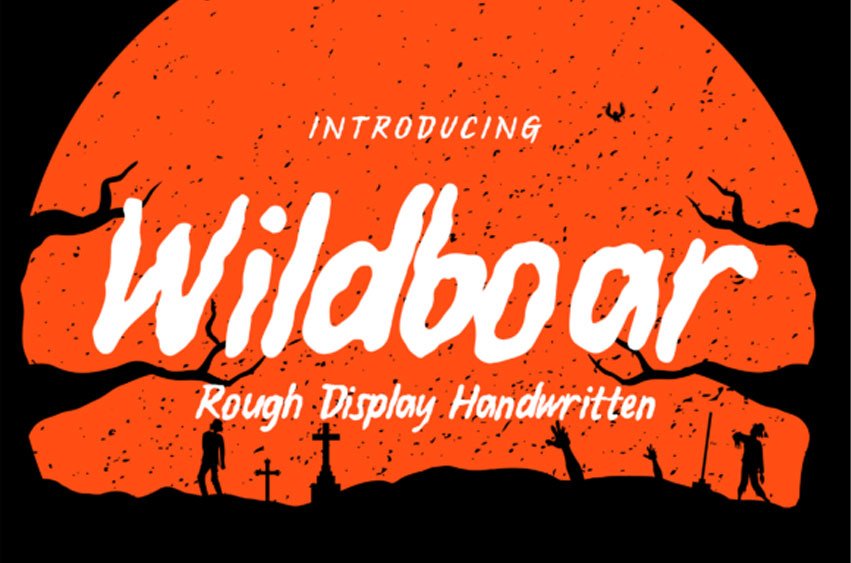
Wildboar Font
Wildboar Font is a rough handwritten display font inspired by expressive brush strokes and irregular lettering. Its organic shapes and uneven edges create a raw and energetic look, making each word feel dynamic and full of character.
Designed for high-impact visuals, this font captures a spooky and playful atmosphere, perfect for seasonal and themed designs. The natural flow of its strokes gives a handcrafted feel, while maintaining readability for headlines and short text.
Wildboar is well-suited for Halloween posters, event promotions, product packaging, social media graphics, and creative branding that require a bold and expressive handwritten style.